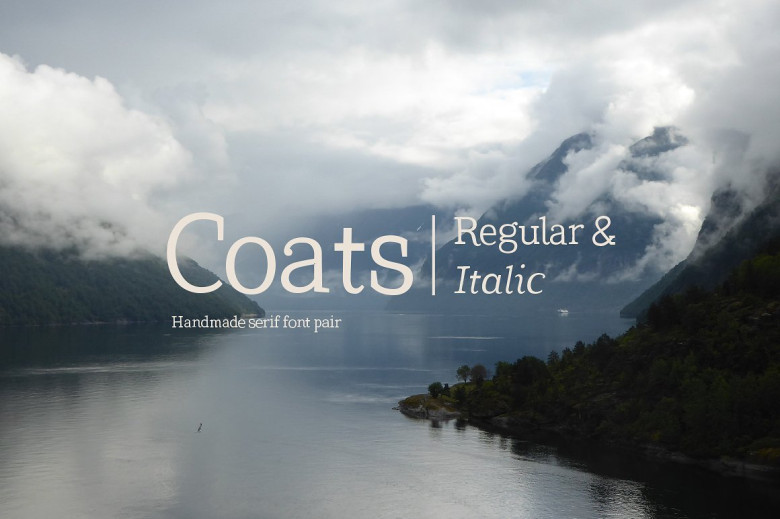
Coats Handmade Serif Font
Introducing Coats Handmade Serif Font! Coats Typeface designed by Piñata, this is a premium font, are sold on creativemarket, but it was great, it is free today for download. Meet the warming handmade antiqua Coats Regular and its slanted version Coats Italic. A hand written hand-made antiqua with a lively character for short emotional inscriptions. Coats will warm you up in a cold day and add a little kindness and easiness into any layout.